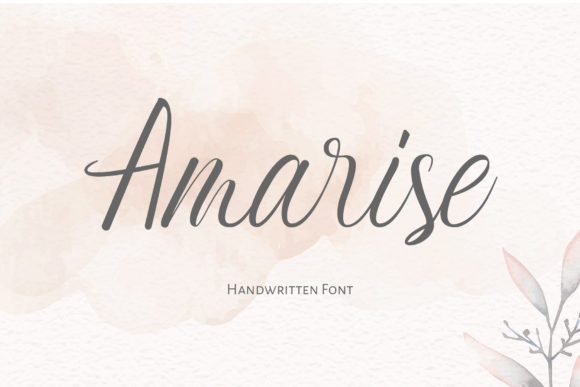
The Quest for the Perfect Script Font: Discovering Amarise
I still remember the frustration of working on a client’s branding project, searching for that perfect script font to give it a personal touch. The project required a stylish, yet dainty font that would reflect the client’s elegant brand personality. After hours of browsing through font libraries, I stumbled upon Amarise – a beautiful script font that instantly caught my attention. In this article, I’ll share my experience with Amarise, its features, and how to make the most of it in your design projects.
Amarise: A Stylish and Dainty Script Font
Amarise is a gorgeous script font suitable for a wide range of projects, including logos, branding projects, labels, photography, watermarks, special events, and more. Its stylish and dainty appearance makes it perfect for adding a touch of elegance to your designs.
• ✅ Elegant and stylish script design
• ✅ Versatile and suitable for various design projects
• ✅ Easy to pair with other fonts for a harmonious design
• ⚠️ Limited character set compared to some other fonts
• ⚠️ May not be the best choice for body text due to its script nature
The Story Behind Amarise: Designer Inspiration
Amarise was designed with the goal of creating a beautiful, elegant script font that would add a touch of sophistication to any design project. The designer drew inspiration from classic calligraphy and modern typography, resulting in a unique and stylish font that’s perfect for a wide range of applications.
Q: What type of projects is Amarise suitable for?
A: Amarise is suitable for a wide range of projects, including logos, branding projects, labels, photography, watermarks, special events, and more.
Q: Does Amarise support OpenType features?
A: Yes, Amarise supports OpenType features, including glyphs, stylistic alternates, and swashes.